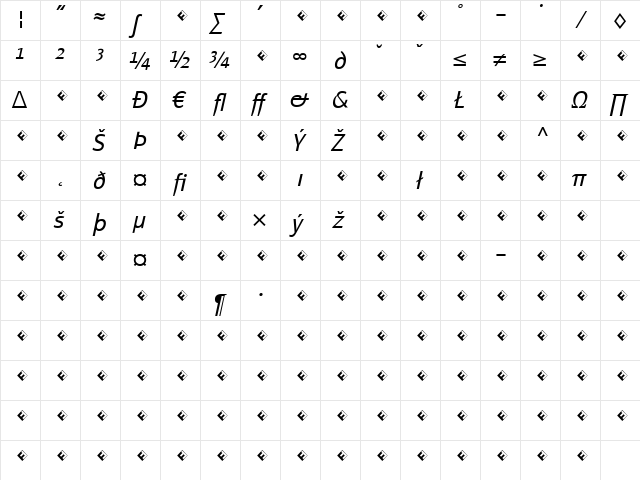
PageSans-LightItalicExpert Regular Font Preview
| Foundry | Albert Boton, published by FontShop International for the FontFont Library |
| Designer | Albert Boton |
Design Context for PageSans-LightItalicExpert Typeface
PageSans-LightItalicExpert is a composed and adaptable typeface that performs quietly and consistently across a wide range of design contexts. The slanted form adds forward momentum and visual energy. The delicate stroke weight brings airiness and refinement to layouts.
Pro Tip: Try PageSans-LightItalicExpert for annotation and caption copy alongside an upright companion — the contrast in angle creates a dynamic but ordered typographic system.